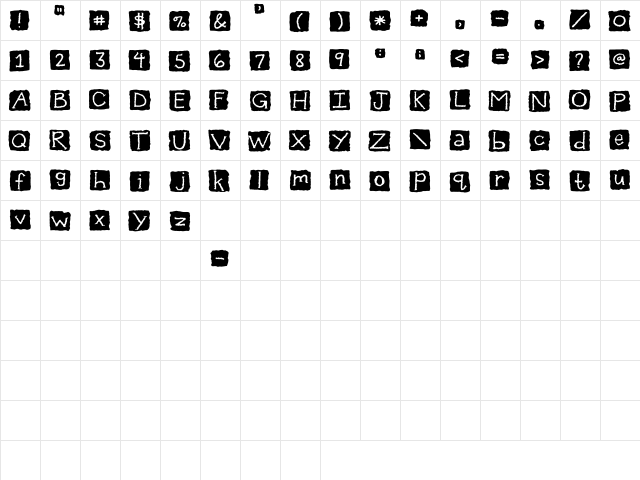
2Peas Distressed 2Peas Distressed Font Preview
2Peas Distressed 2Peas Distressed
Design Context for 2Peas Distressed Typeface
2Peas Distressed embraces imperfection — its rough, textured character adds raw authenticity to designs that want to feel lived-in and unconventional.
Suited to punk-influenced zines, underground music branding, streetwear, and raw, anti-corporate design.
Pro Tip: Pair 2Peas Distressed with intentionally raw or lo-fi design elements. Fighting against it with overly polished surroundings will undermine its personality.